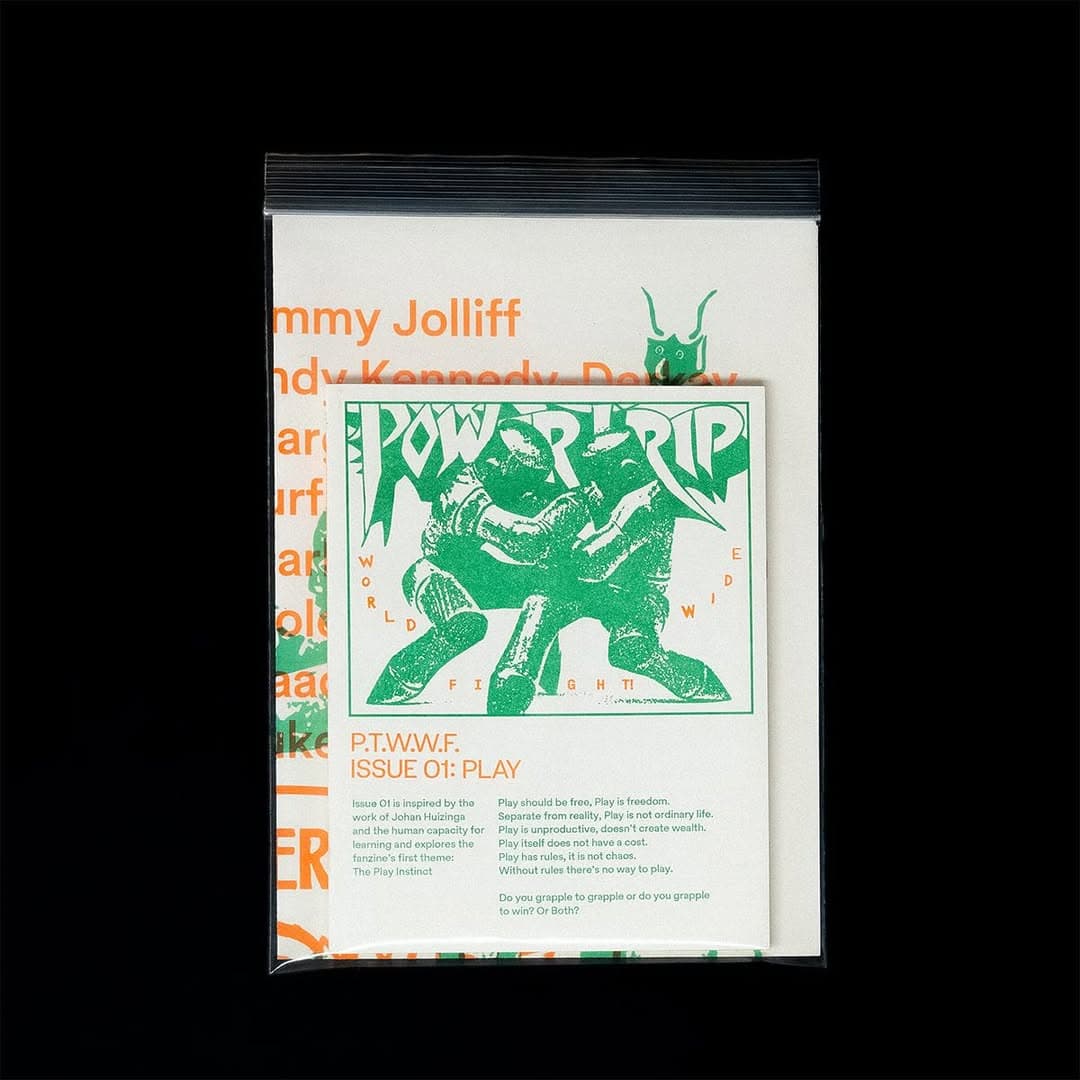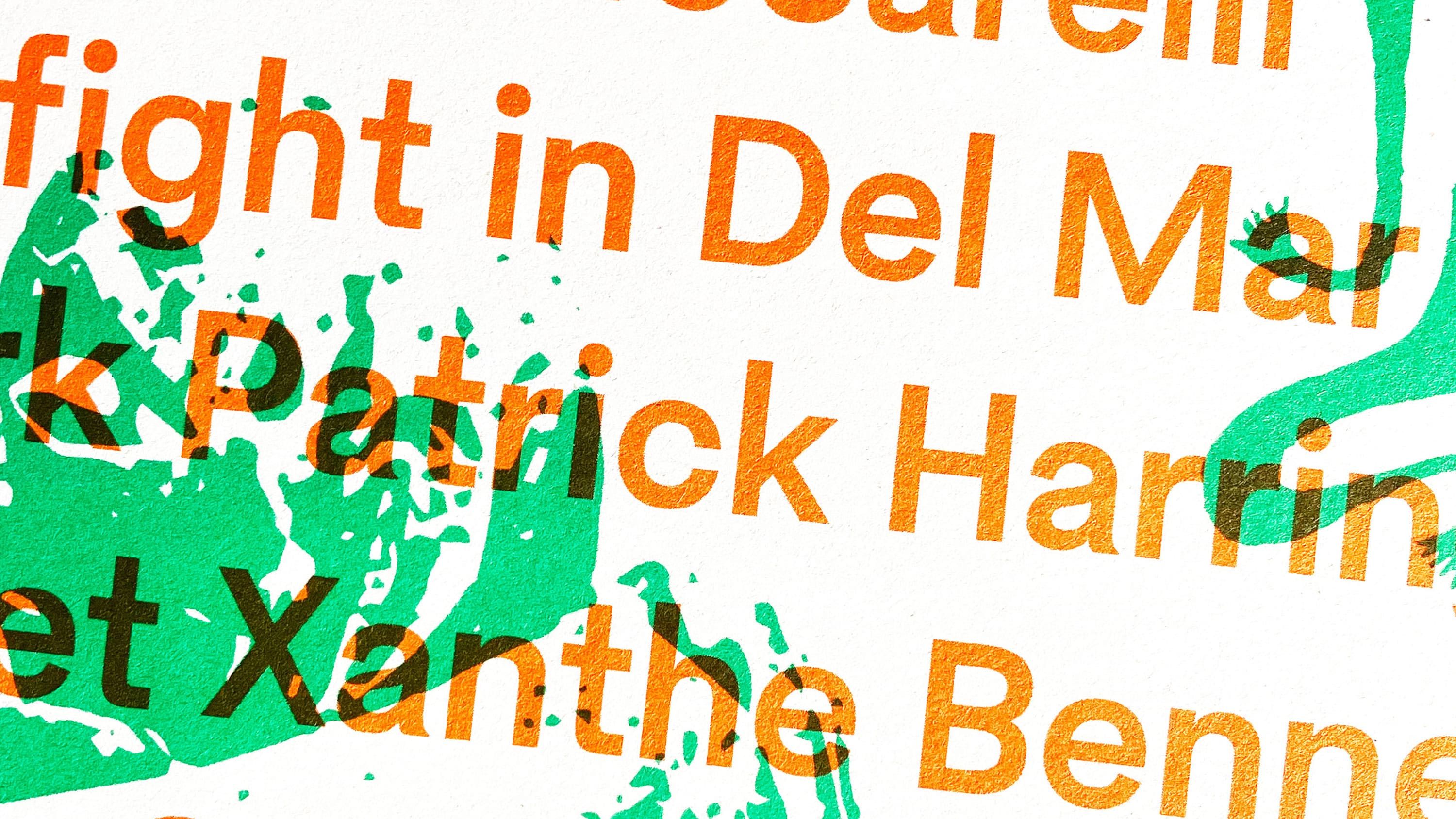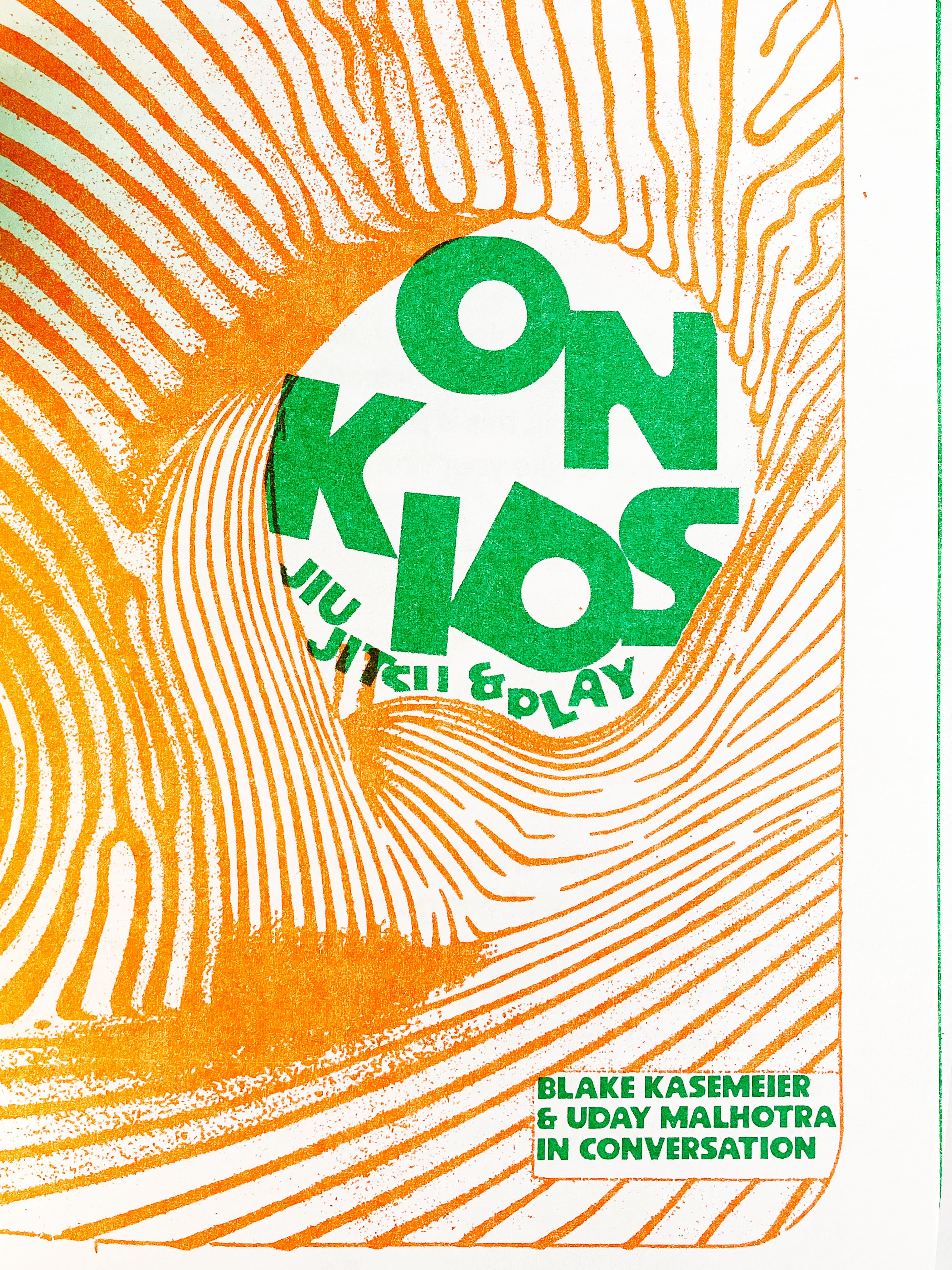
Earth, Doss and Ceraph in use for Powertrip© Worldwide Jiu-Jitsu Fanzine
Powertrip© Worldwide is a global fight fanzine based in Los Angeles. A creative publisher that celebrates global grappling cultures, built on the idea that fighting’s true purpose isn’t to destroy others but to bring us closer together. Run by artists who grapple and grapplers who create. Physicality is culture, grappling is art, and the best self-improvement tool is a savvy training partner.
Issue 01: Play uses Sharp Earth as the backbone for the majority of the editorial and interview text as well as incorporating the DOSS Collection and Ceraph in display contexts. Founder and design director Yego Moravia described Earth as the perfect thematic foundation for the zine because of its playful and bouyant nature.